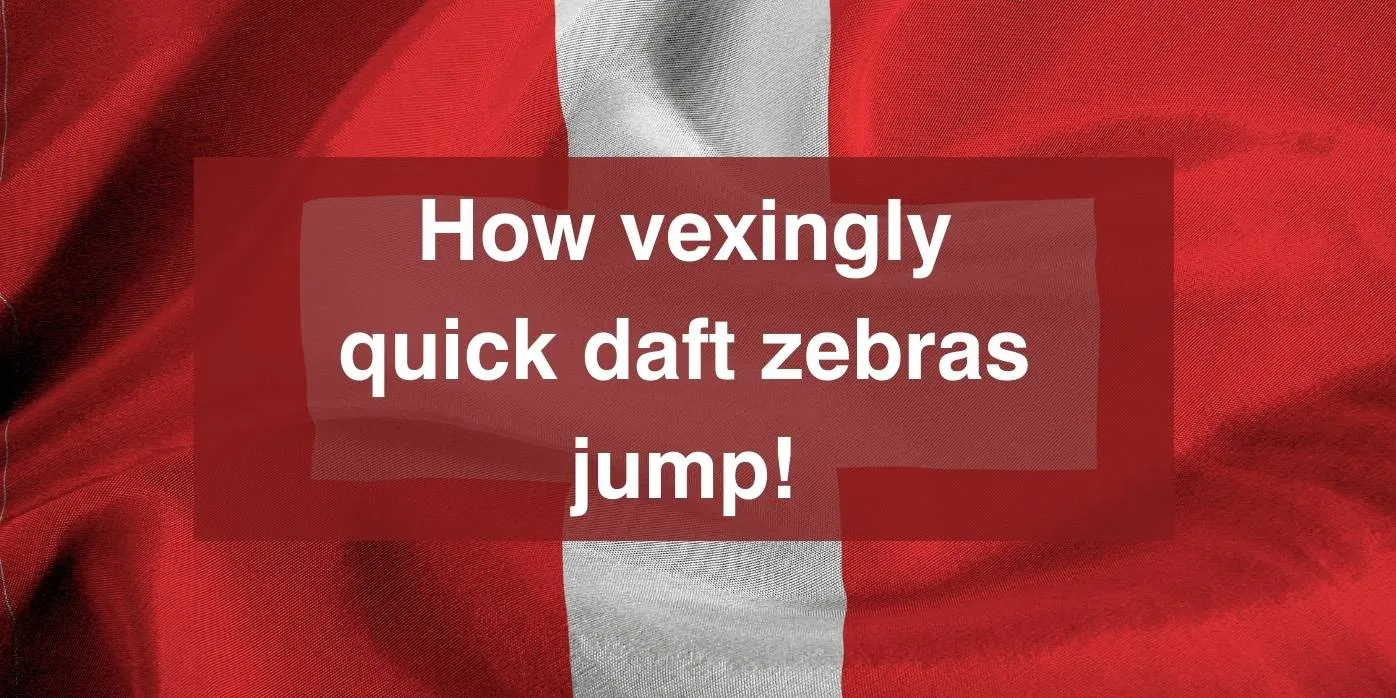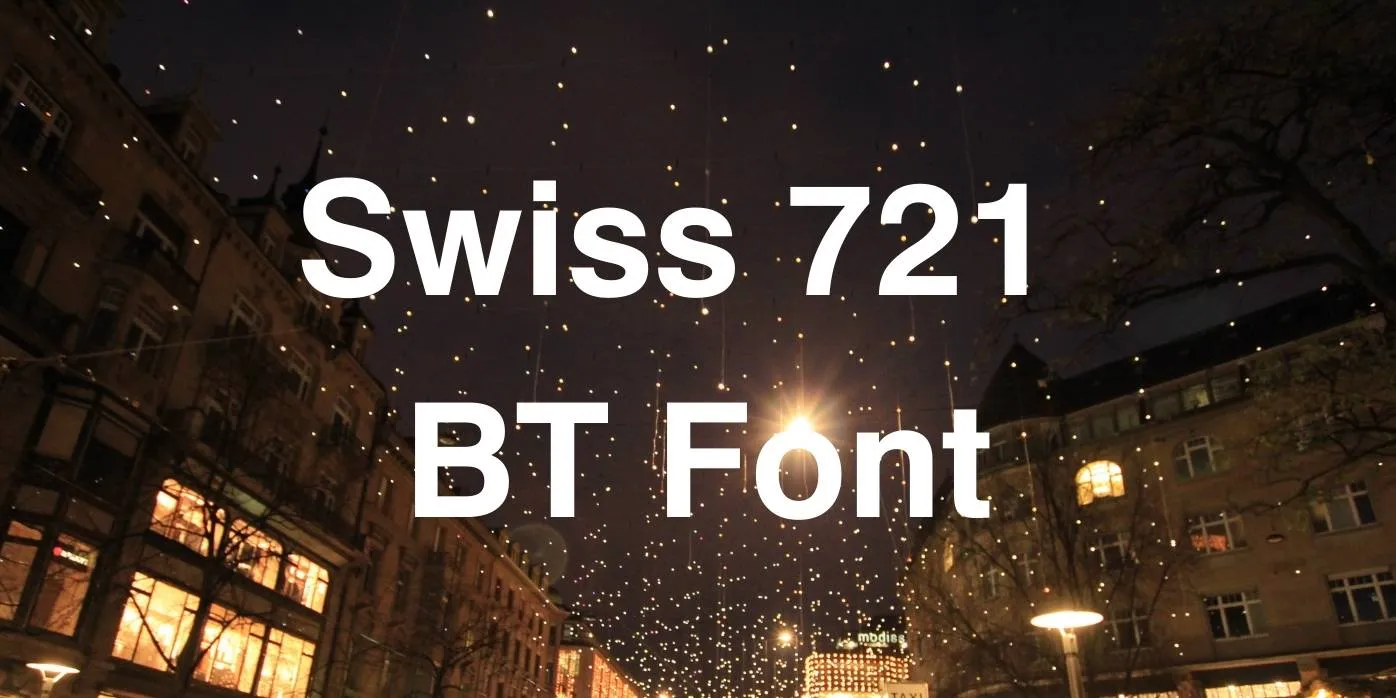
Swiss 721 Bt Font
Swiss 721 BT Font was designed by a very famous designer named Max Miedinger. This classy typeface belongs to the Sans-Serif typeface. It was released in 1982 by the Haas Type Foundry. This marvelous font is one of the most popular typefaces in the world.
It has been used extensively for both text and display settings. This astonishing font is a very versatile typeface that can be used for a variety of applications. It has a strong, yet elegant appearance that makes it perfect for creative designs. This stylish font is available in both a light and a dark version, which allows you to choose the right one for your project.
This stunning typeface is best for different programs like Adobe Illustrator, Canva, Adobe Photoshop. Helvetica Font is very famous and alternative to this font. The best part about this typeface is that it’s easy to use. It comes with extensive character sets and OpenType features that make it perfect for any project.